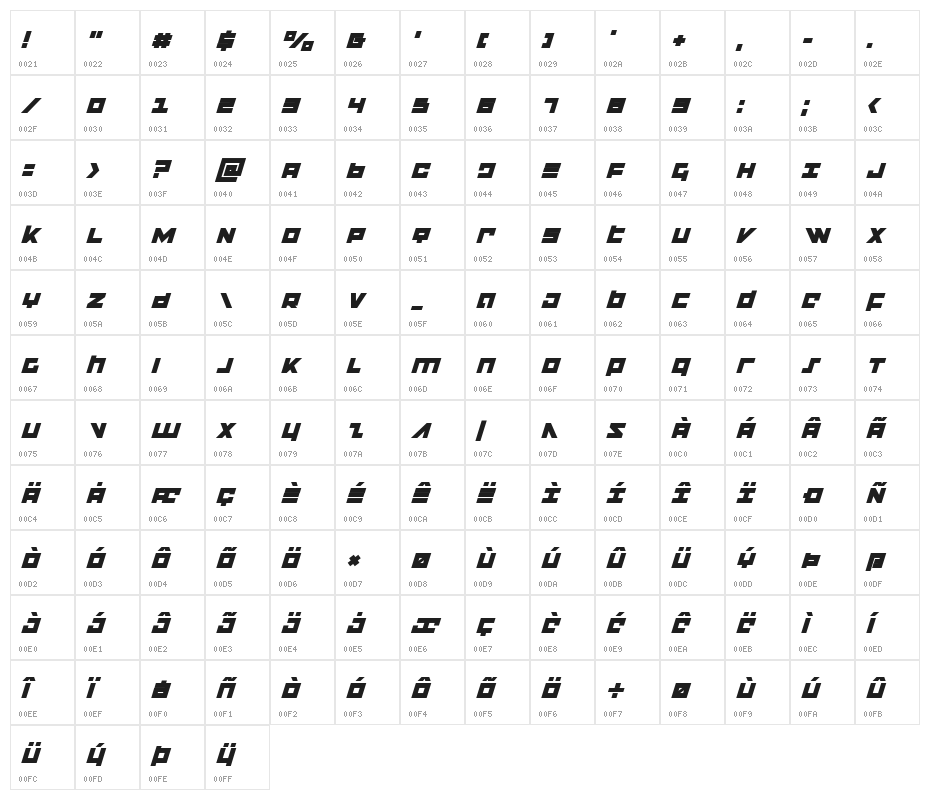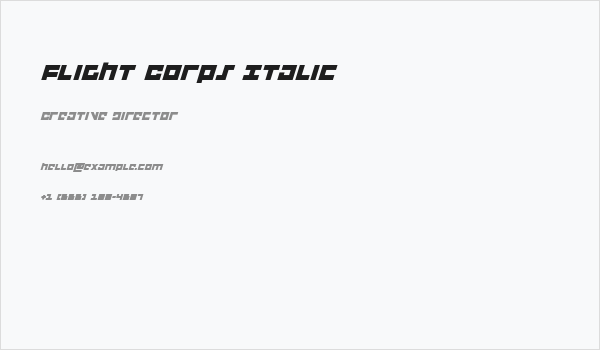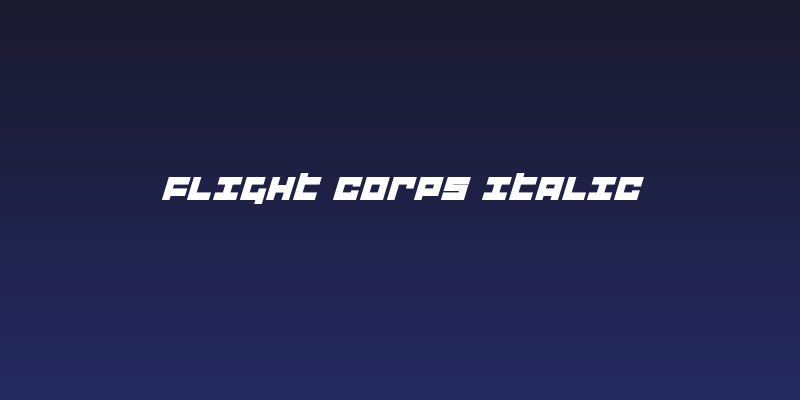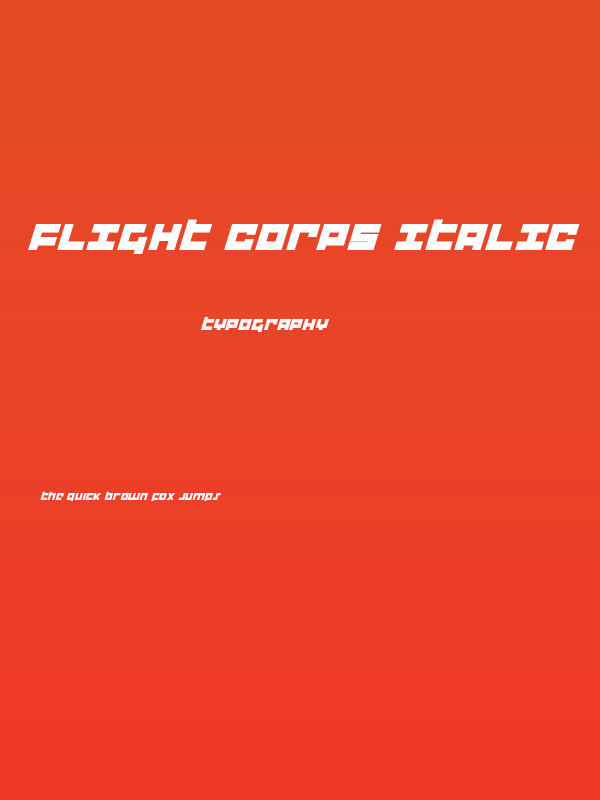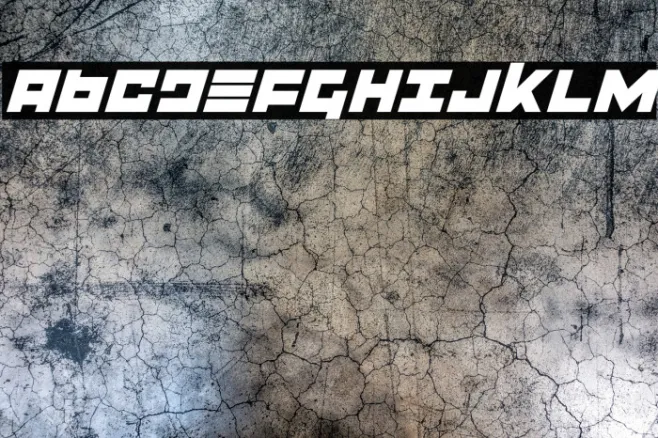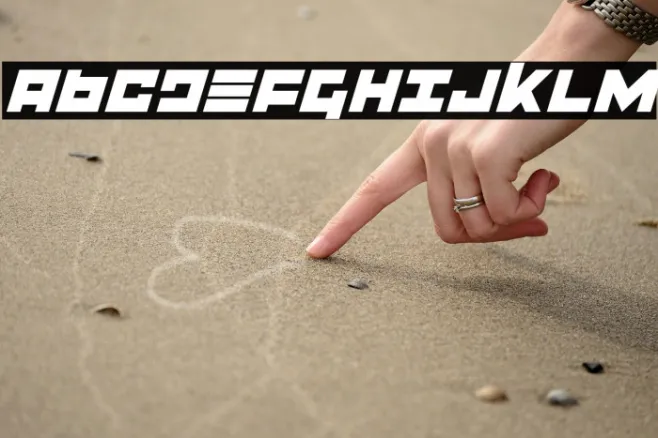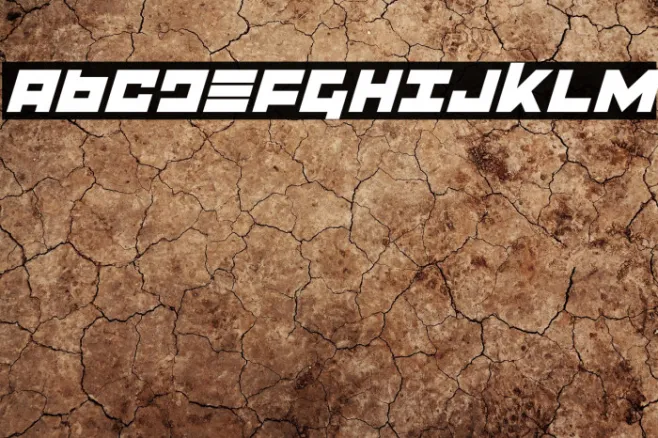
Flight Corps Italic Font
Flight Corps Italic Description
This font features a bold, angular design with a futuristic and dynamic feel. The characters are sharply cut with a strong geometric influence, giving it a sense of motion and speed. The uppercase and lowercase letters maintain a consistent style, with the uppercase being slightly more pronounced. Numbers and special characters follow the same angular and bold aesthetic, ensuring uniformity across all glyphs. The italic slant adds to the sense of forward movement, making it ideal for projects that require a modern and energetic look.
| Proposed Projects | Ideal for sci-fi themed designs, video game titles, sports branding, and dynamic posters. |